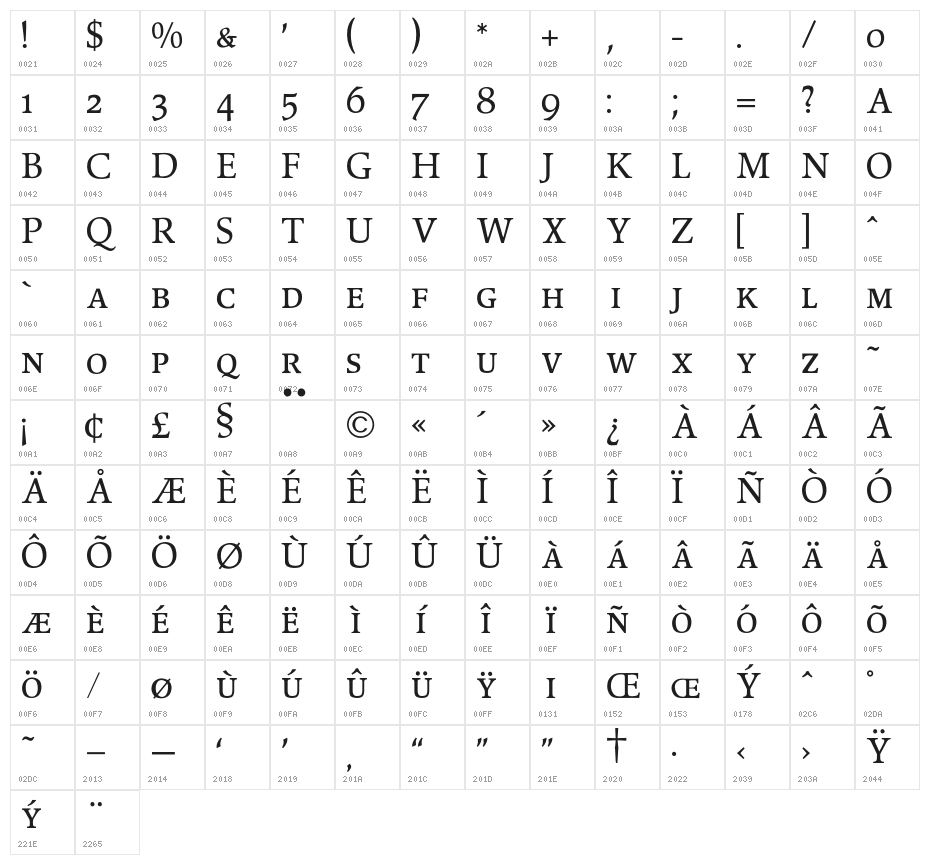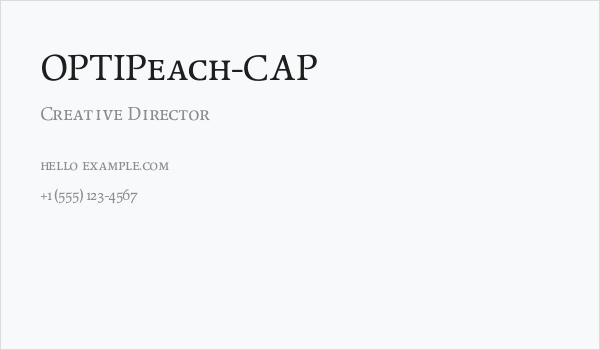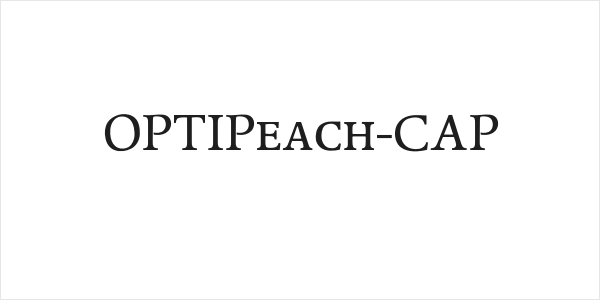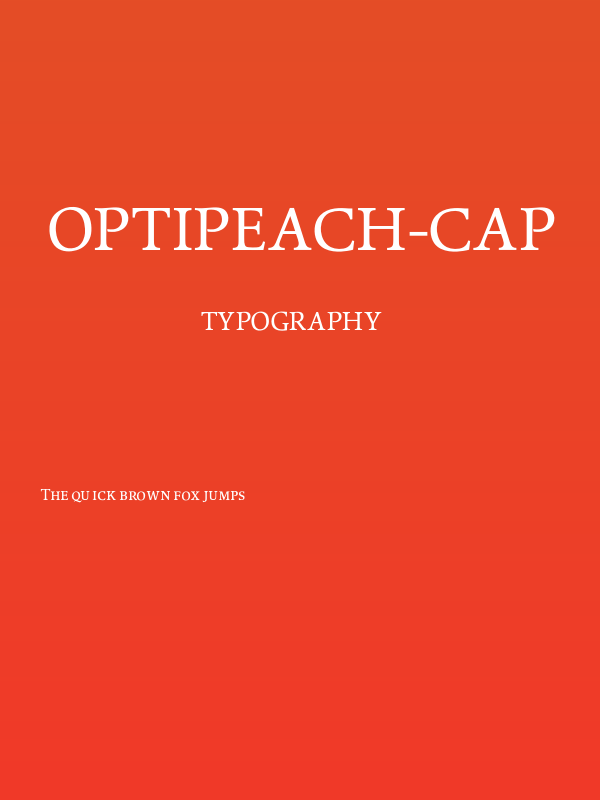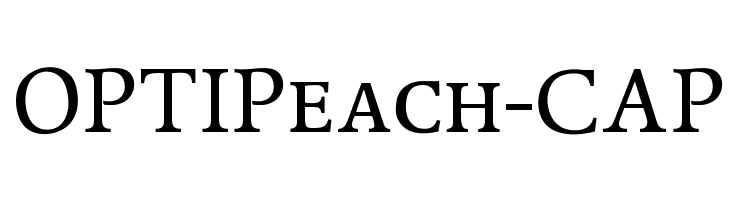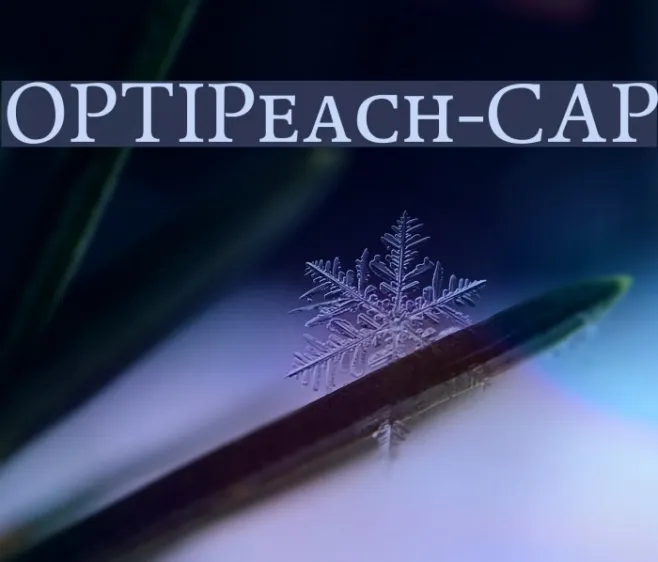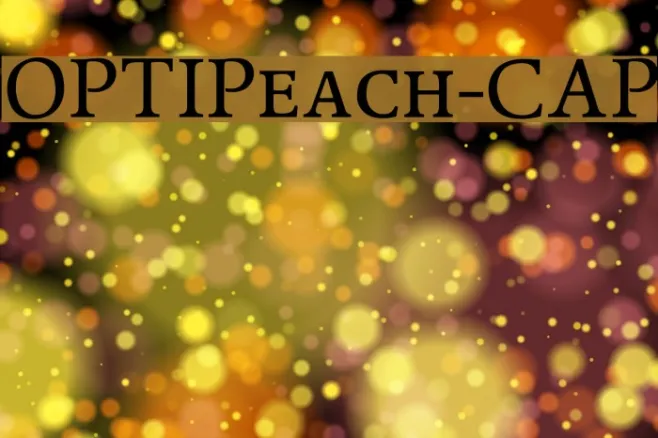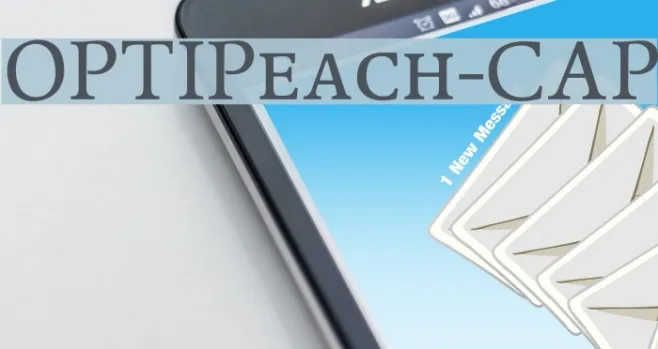
OPTIPeach-CAP Font
OPTIPeach-CAP Description
This font features a classic serif style with a strong presence and elegant curves. The uppercase letters are bold and authoritative, while the lowercase letters maintain a consistent and harmonious flow. The numerals are well-proportioned, making them easily readable. Special characters are designed with a touch of sophistication, adding to the font's overall elegance. The strokes are moderately thick, providing a medium contrast that enhances readability without compromising on style. This font is versatile, suitable for both formal and creative applications.